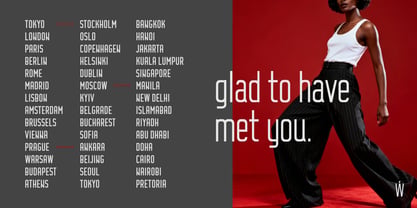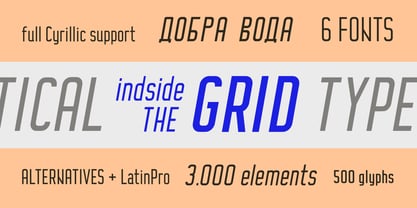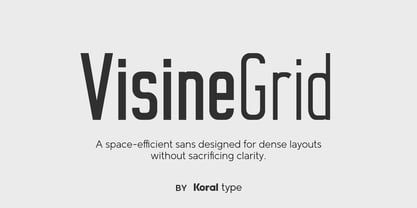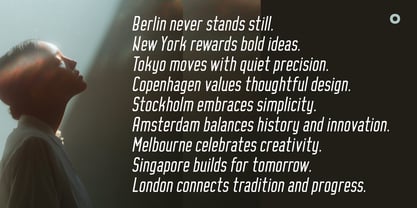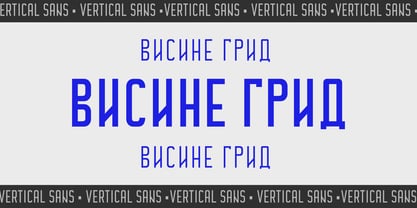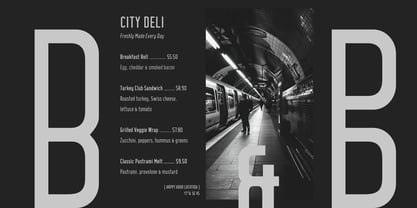
VisineGrid
by Koral Creative
The VisineGrid Font Family was designed by Milos Kozlovacki and published by Koral Creative. VisineGrid contains 6 styles and family package options. More about this family
Designed for modern communication, VisineGrid combines efficient vertical proportions with a clean contemporary voice. Every glyph is carefully refined through extensive spacing and kerning to ensure consistent texture, readability, and performance across complex typographic systems. From visual identities and editorial design to packaging and digital products, Visine Grid is built for projects where precision matters.